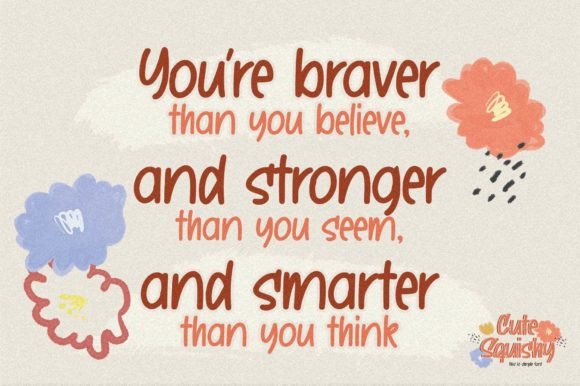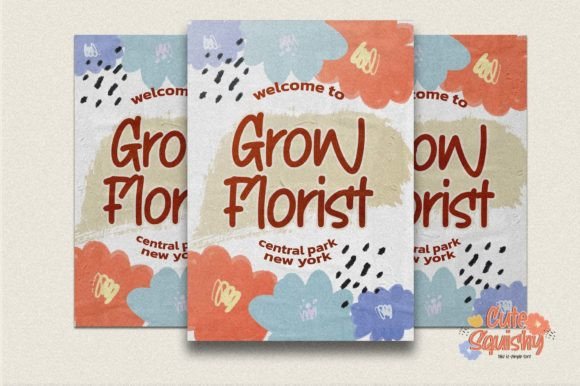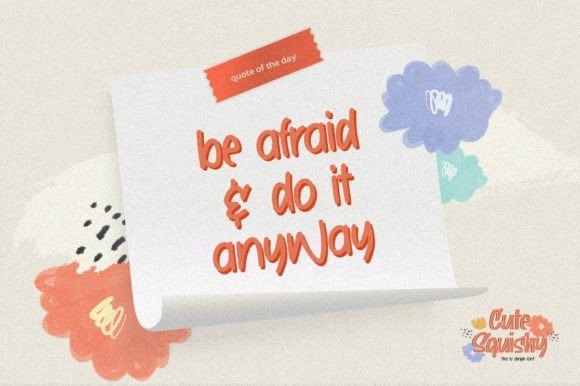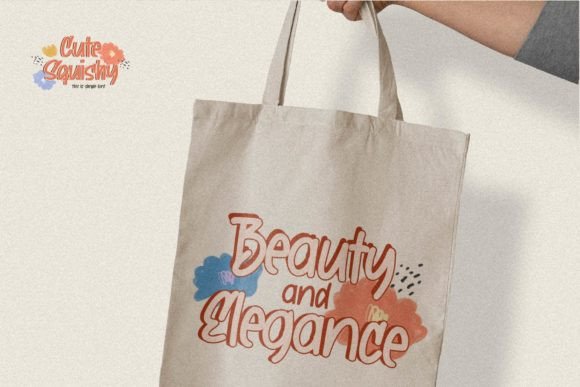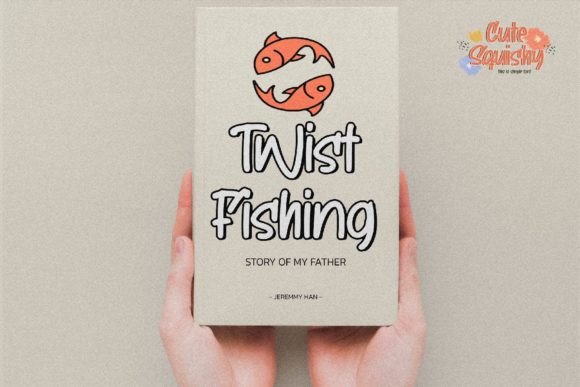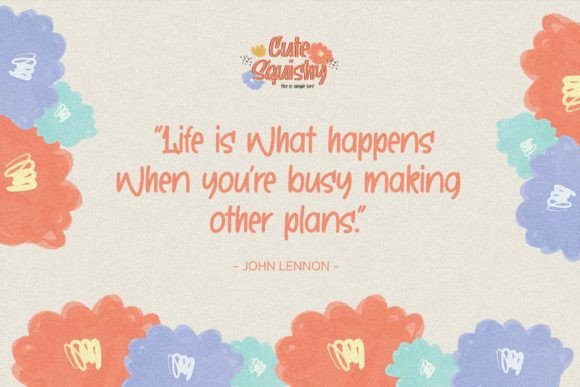
Introduction to Cute Squishy Font
Cute Squishy is a Simple Font with a natural feel.
This handmade font will give your design a beautiful natural touch It is perfect for any design project such as invitation, logo, book cover, craft, or any design.